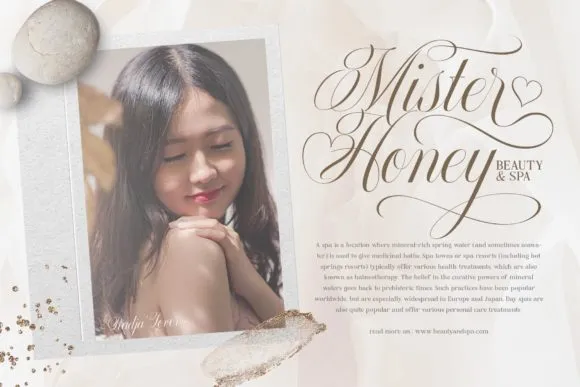
Radja Lover Font is a Valentine’s Day enlivened text style made for different heartfelt topics. It sticks to a basic and exquisite present day script style, other than that this textual style has a special swash looking like a heart that can be utilized for novel love plans.
Radja Lover Font is PUA encoded which implies you can get to the glyphs in general and swashes easily!